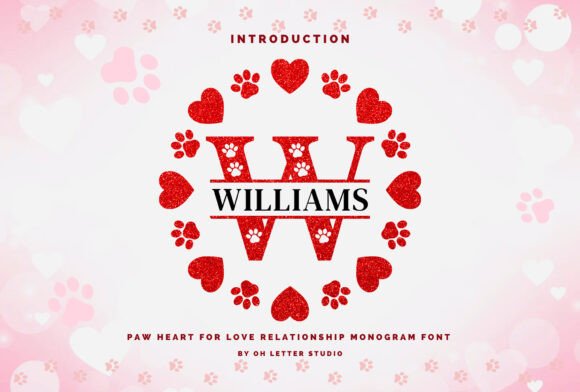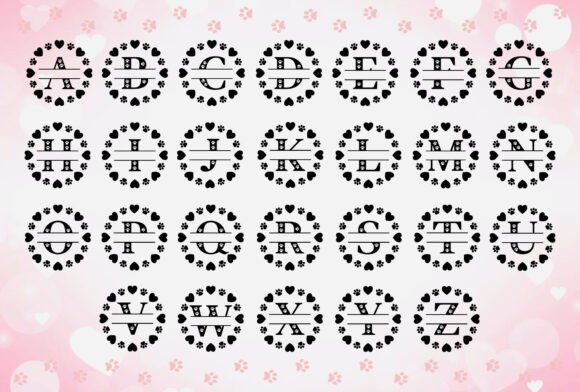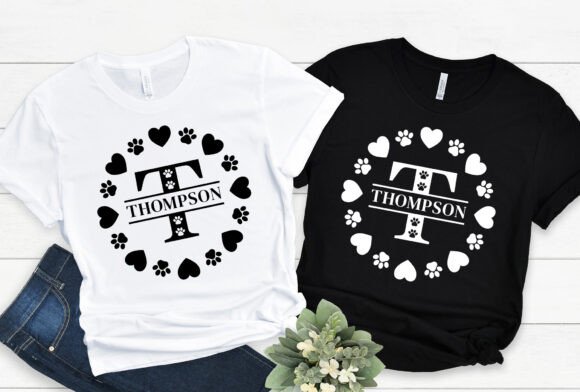
Paw Heart Mongram Font
Paw Monogram is a dog-cat font inspired by Animal typography design with hearts for Valentine’s Day. This bold and dynamic font captures the energy and excitement of Animals and sports games. It features a strong, cute, and commanding look, with thick lines and sharp edges that convey power and athleticism.
This font has space for you to enter your name. or specific words you want. The letterforms are carefully crafted to create a sense of motion and speed, making this font a great choice for conveying movement and action.